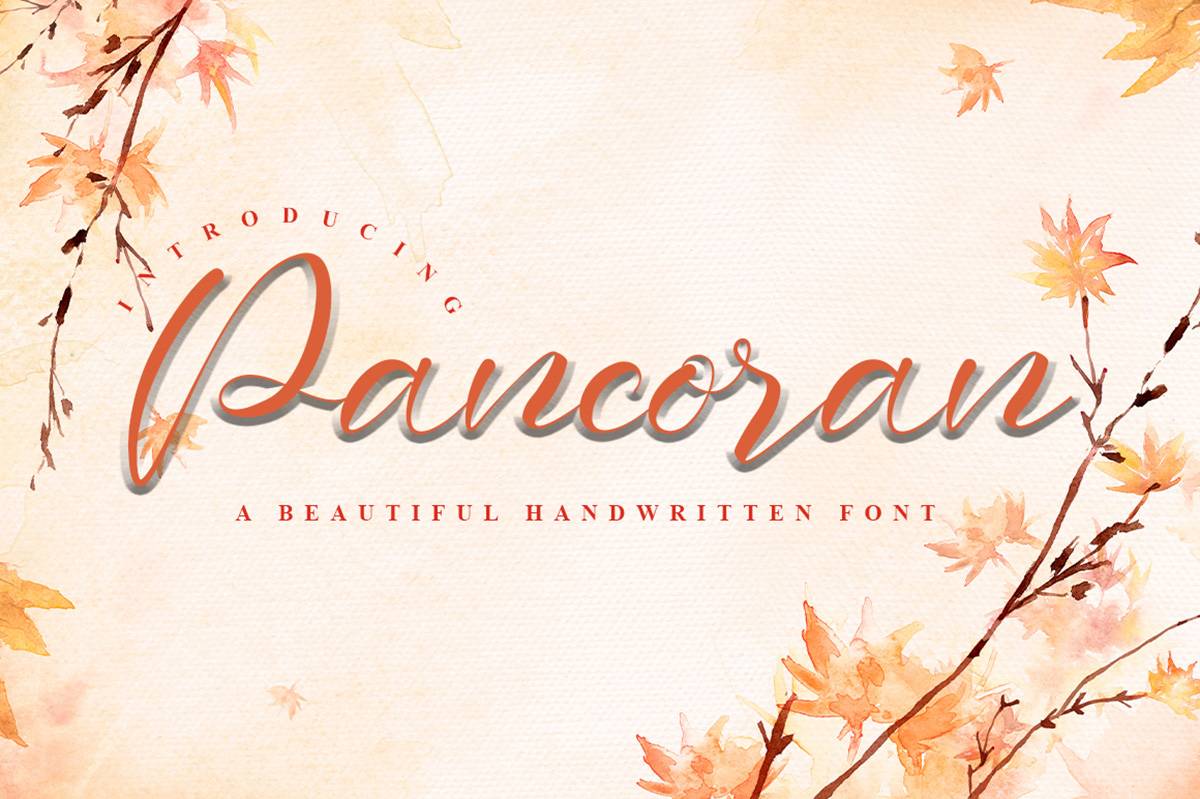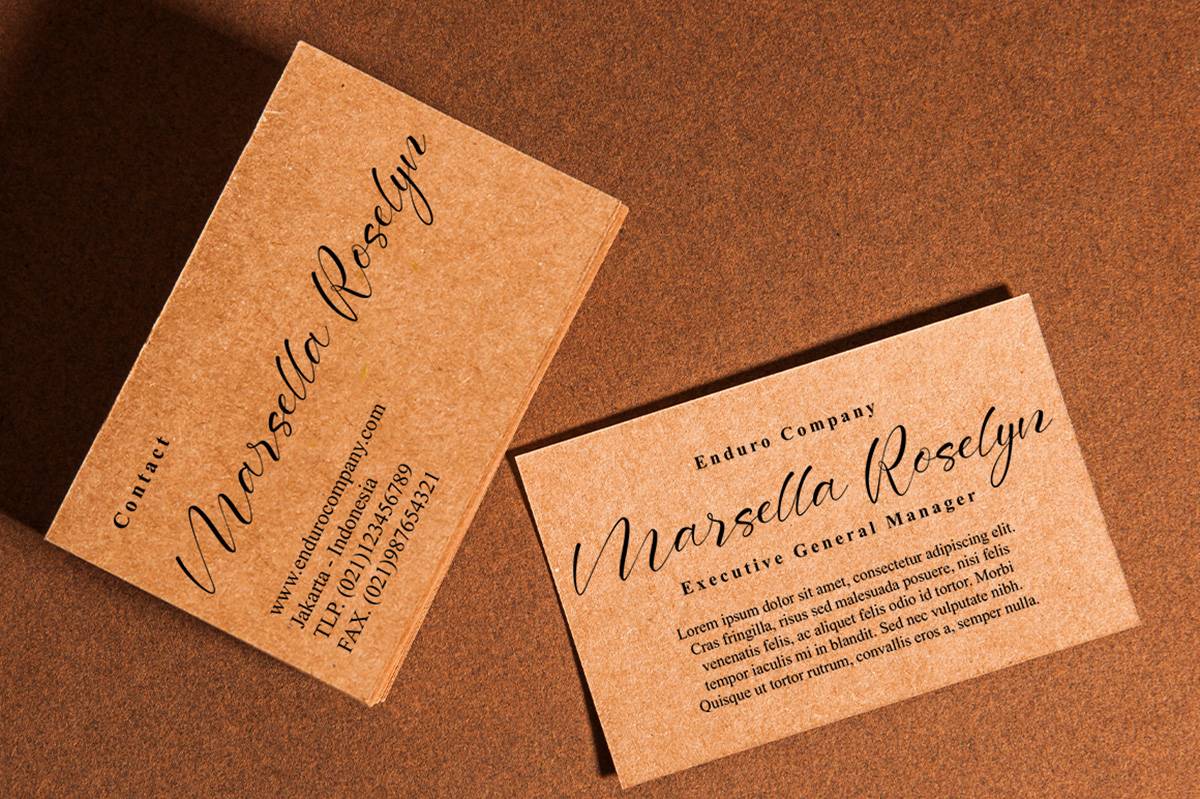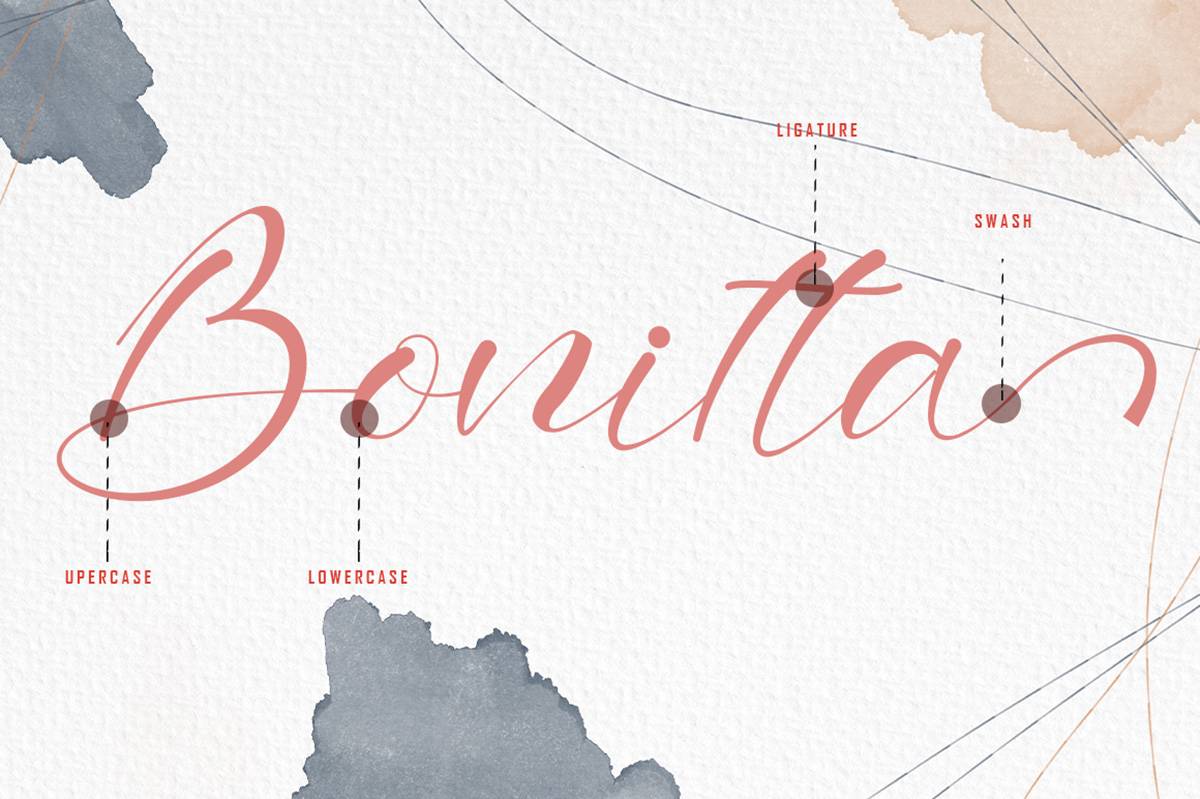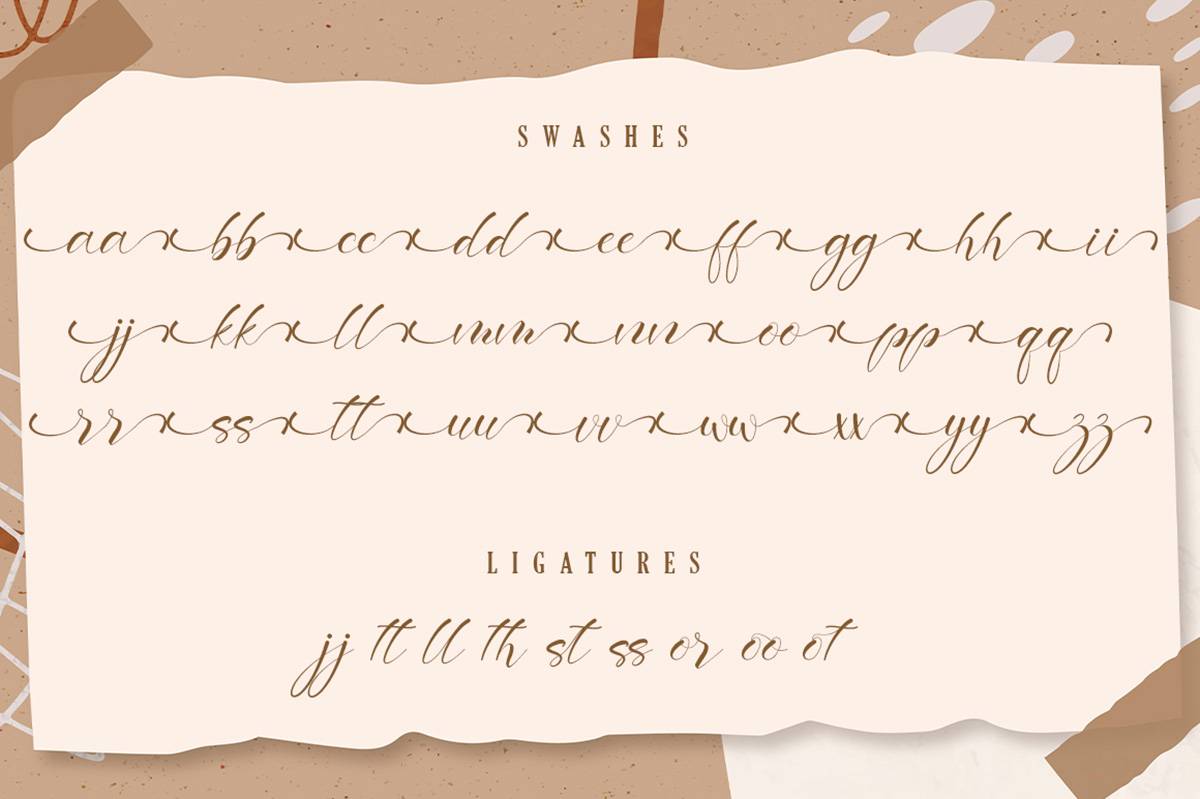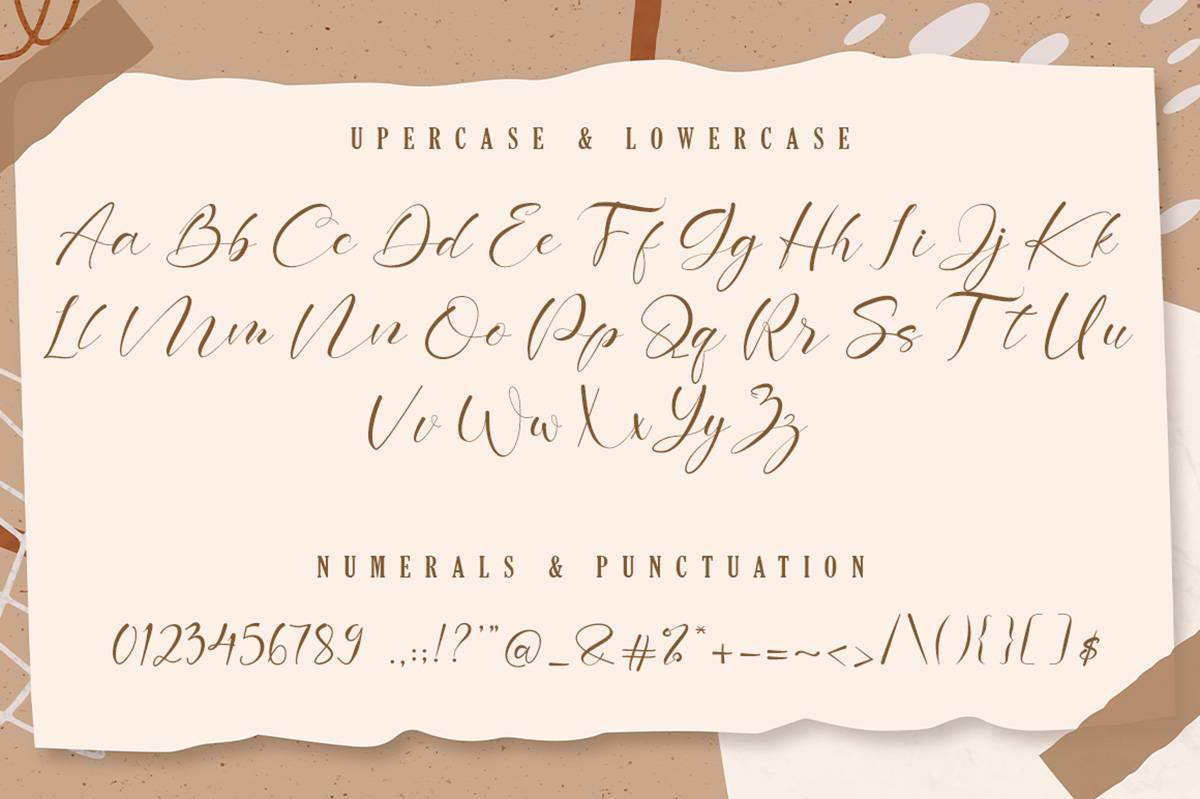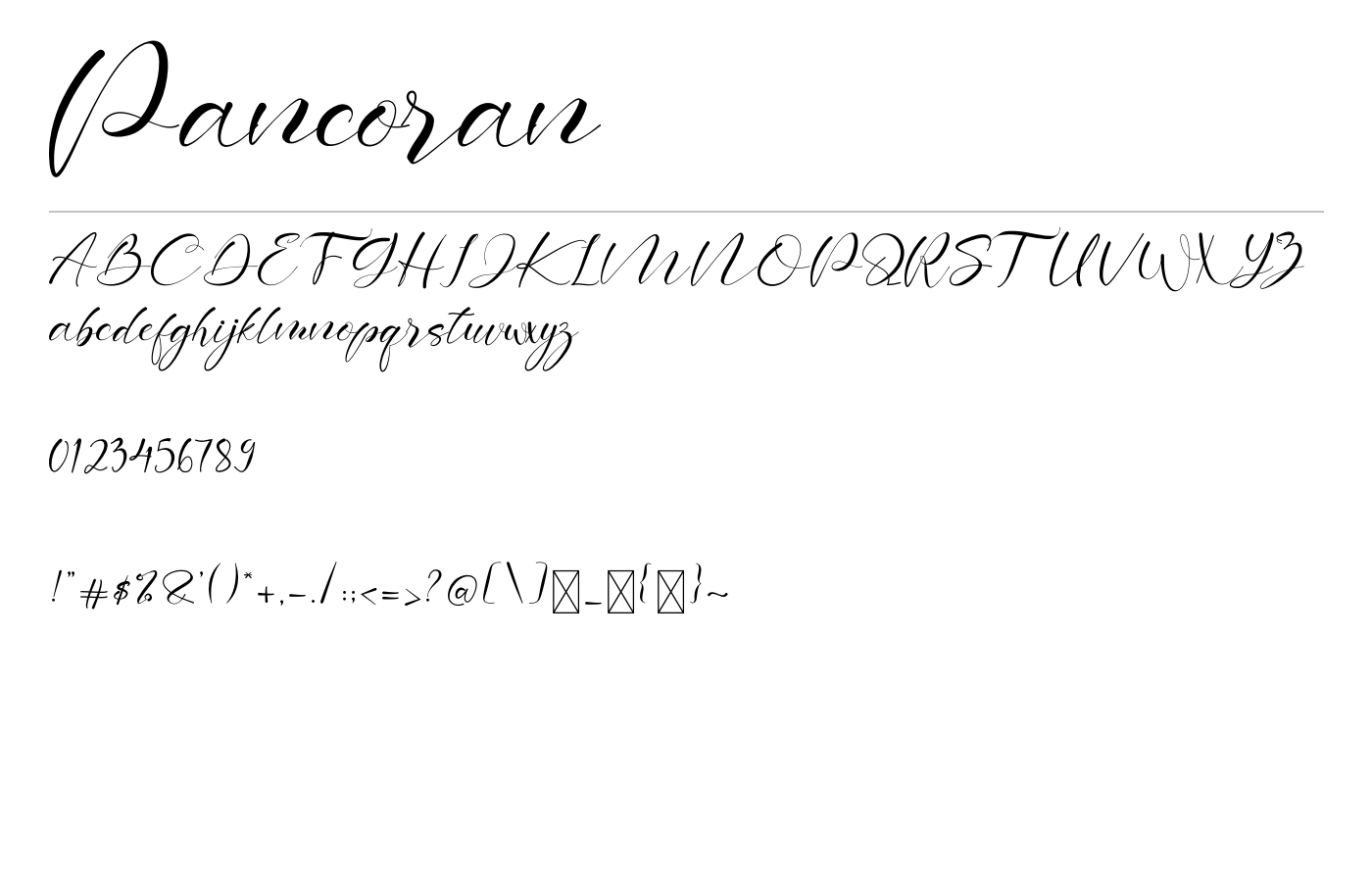
Pancoran Font is an elegant, flowing script typeface with delicate, high-contrast strokes that create a refined and sophisticated feel. Its slender letterforms and graceful curves make it ideal for upscale branding, invitations, and decorative headlines where a touch of luxury and personality is desired. This font works best in settings that call for a stylish, handwritten look that stands out with poise and charm.
Pancoran Font
About Pancoran Font
| Font family | Pancoran Font |
| Release date | 2022-03-07 |
| Designer | Asroni |